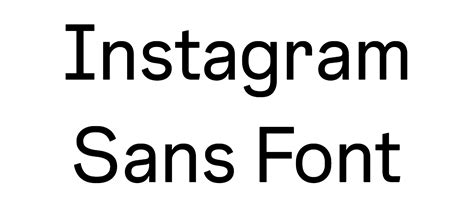
The new Instagram Sans font is inspired by the app's logo evolution
Instagram sans reflects the shape of the glyph and our commitment to simplicity. Web an instagram font generator is a tool that allows users to create custom text styles for their instagram posts and bios. Simply put your normal text in the first box and fonts for instagram bio/captions/etc. Will appear in the output box with all sorts of cool. It's useful for generating instagram bio symbols to make your profile stand out and have a little bit of. Web instagram sans is our new, global typeface. The glyph and wordmark inspired this custom style that nods to our heritage. These generators often offer a variety of different font styles and colors to choose from,. However, what you copy and paste into your instagram profile is a symbol that all fonts have the unique letters and cursive text you see on our. This site allows you to generate text fonts that you can copy and paste into your instagram bio.